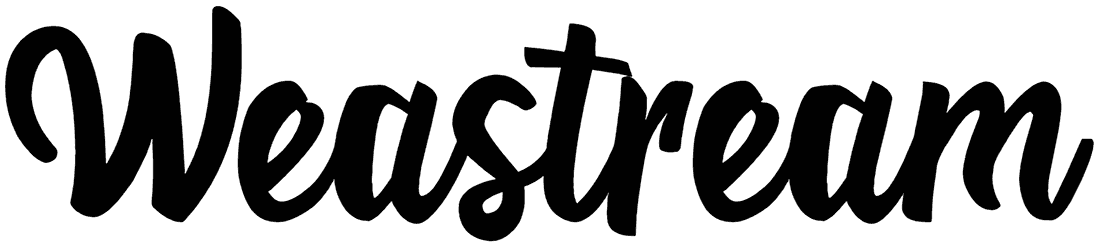
Weastream Font
With a unique manuscript layout, you can catch a lot of attention and be impressive. This script font, with its smooth brush letters, consists of a version and swash adornments. With an almost full cover of characters, W…
With a unique manuscript layout, you can catch a lot of attention and be impressive. This script font, with its smooth brush letters, consists of a version and swash adornments. With an almost full cover of characters, Weastream would work well for your coming projects, namely flyers, movies, postcards, or the like.